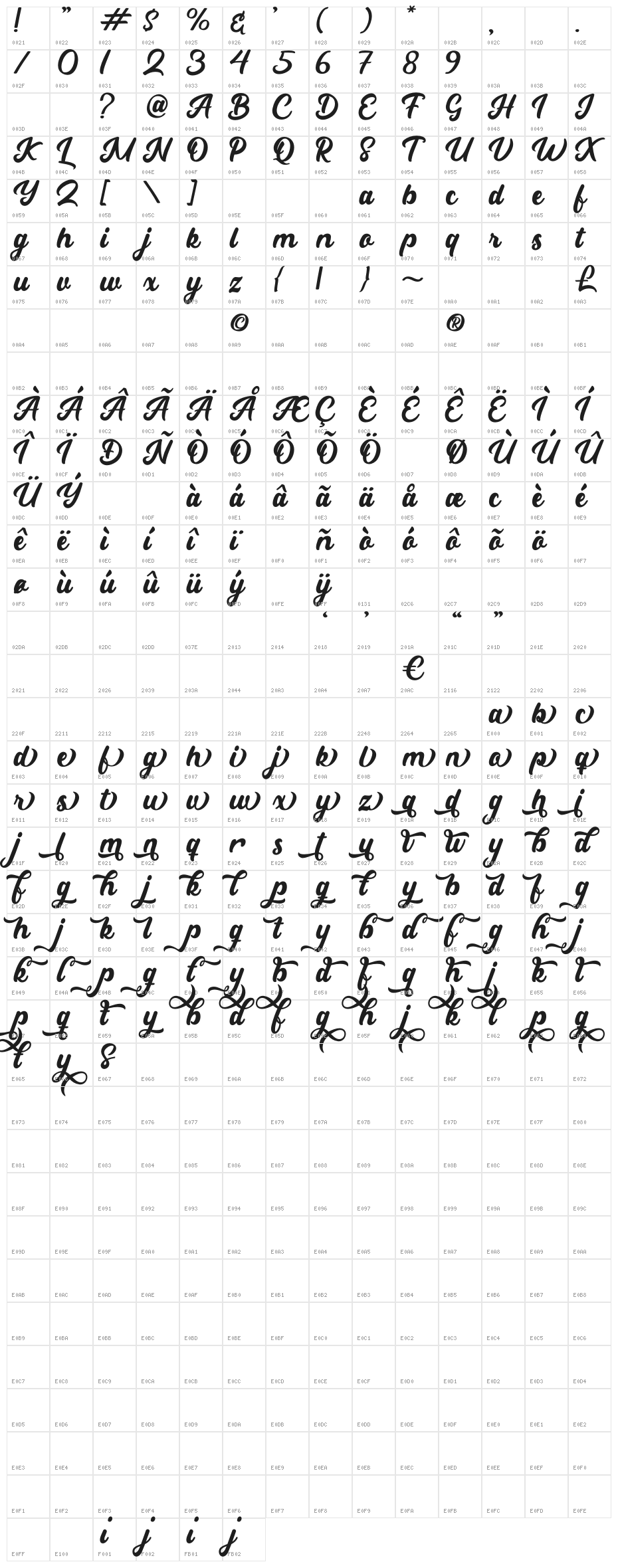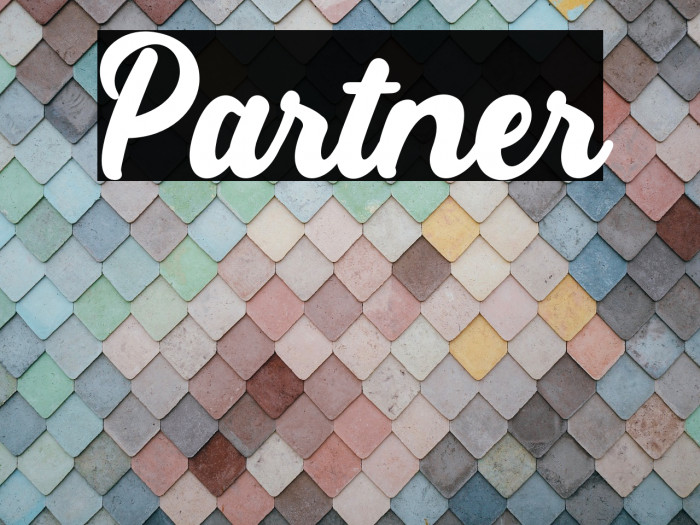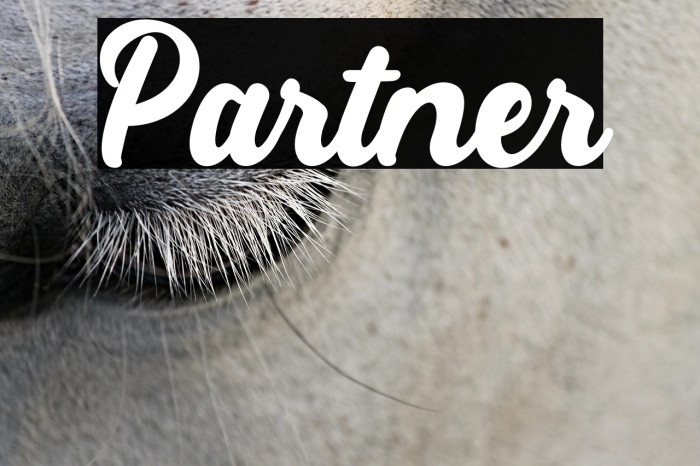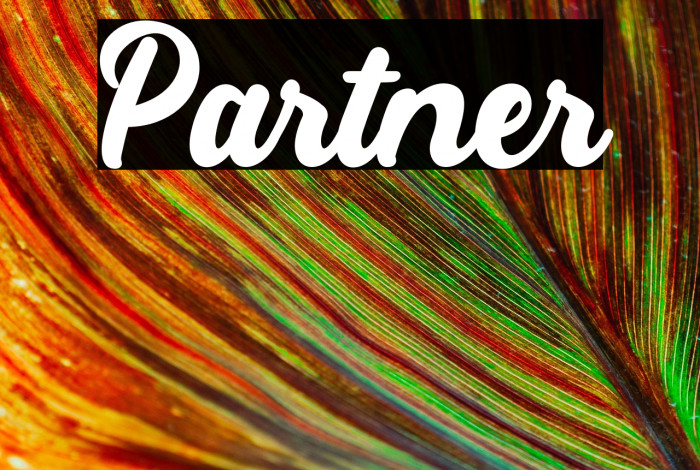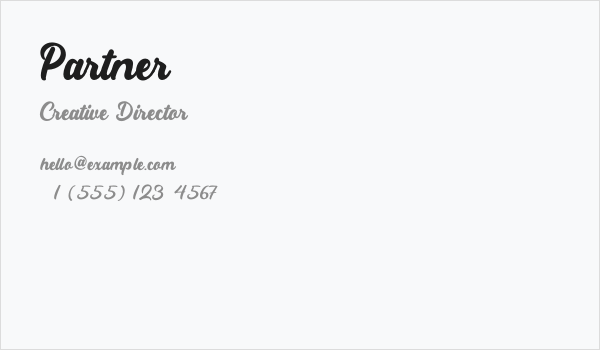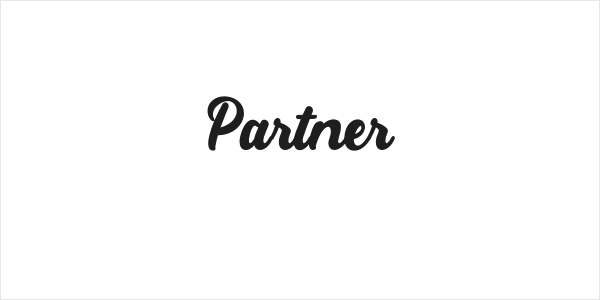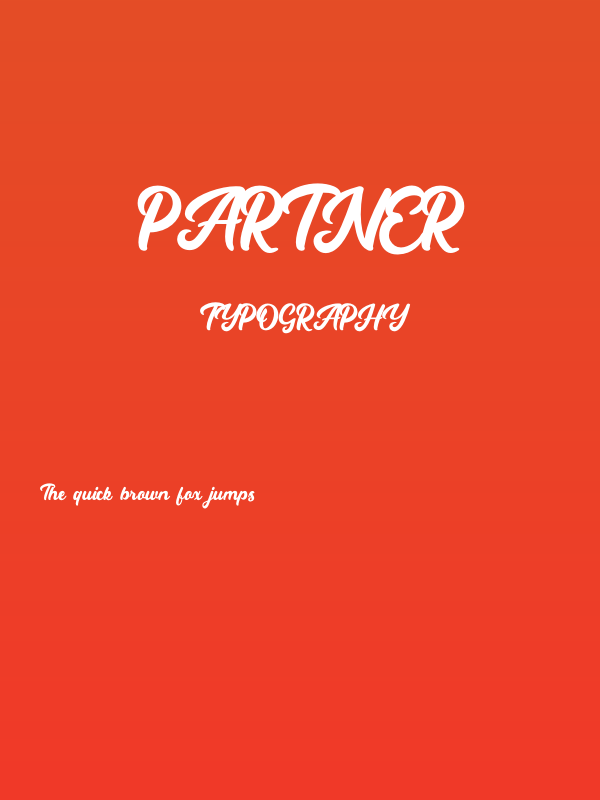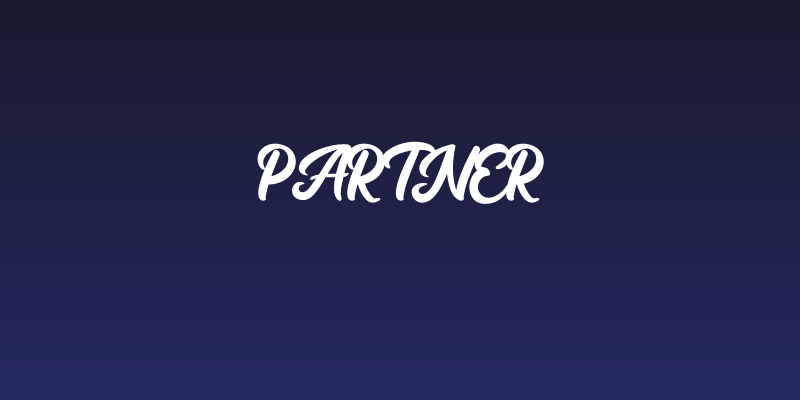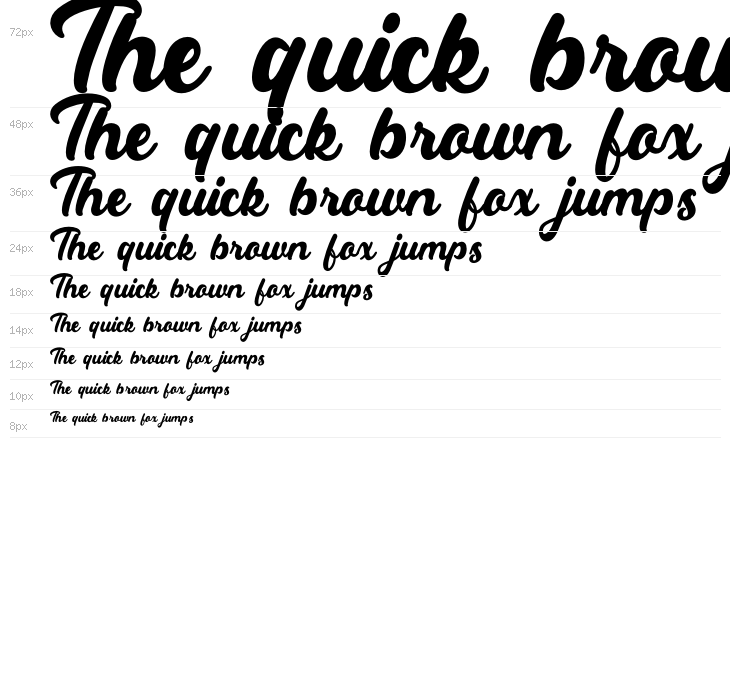
Partner Font
Partner Description
This font features a bold, cursive style with smooth, flowing lines that create a sense of elegance and fluidity. The characters are interconnected, giving it a handwritten appearance that is both stylish and sophisticated. The uppercase letters are slightly larger and more pronounced, while the lowercase letters maintain a consistent flow. The numbers and special characters are designed to match the overall aesthetic, ensuring a cohesive look across all text. The font's boldness makes it stand out, while its cursive nature adds a touch of grace and charm.
| Overall Style | Elegant |
| Use Case | Logos, Invitations, Branding |
| Proposed Projects | Ideal for wedding invitations, branding, logos, and elegant stationery design. |